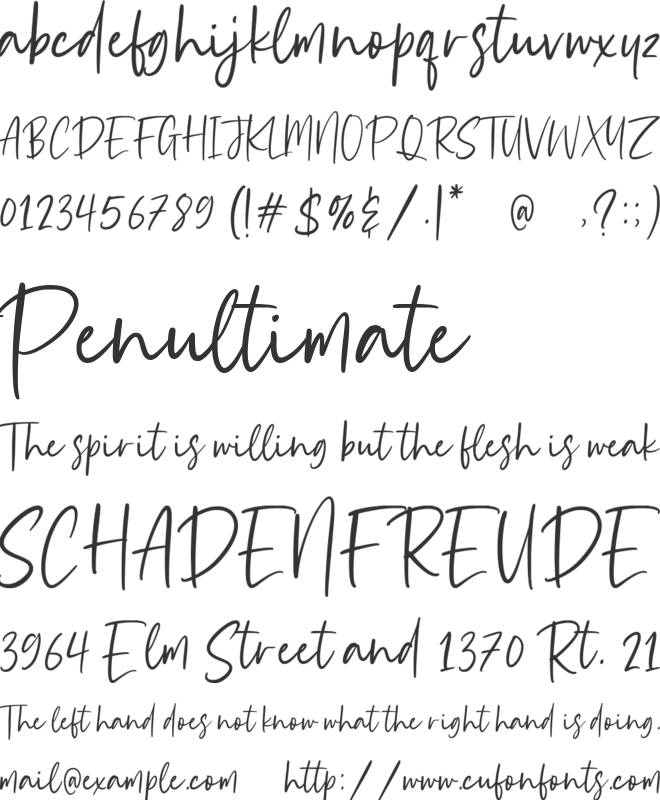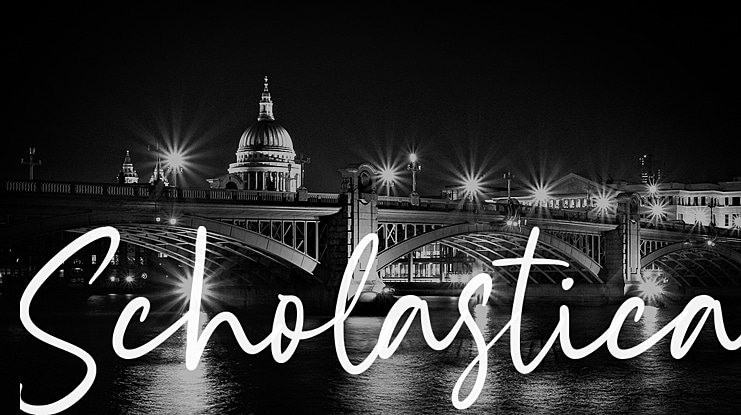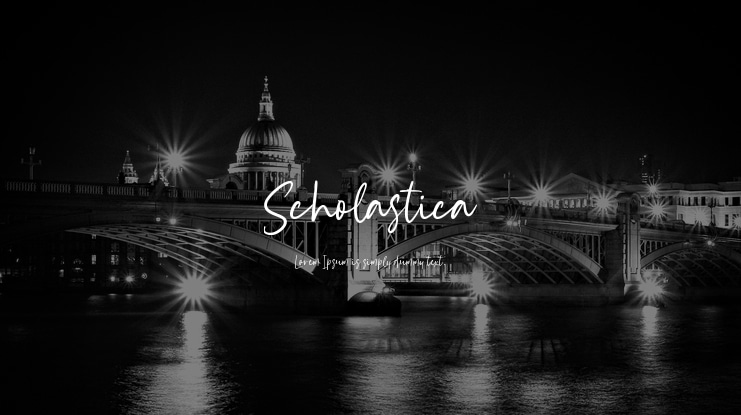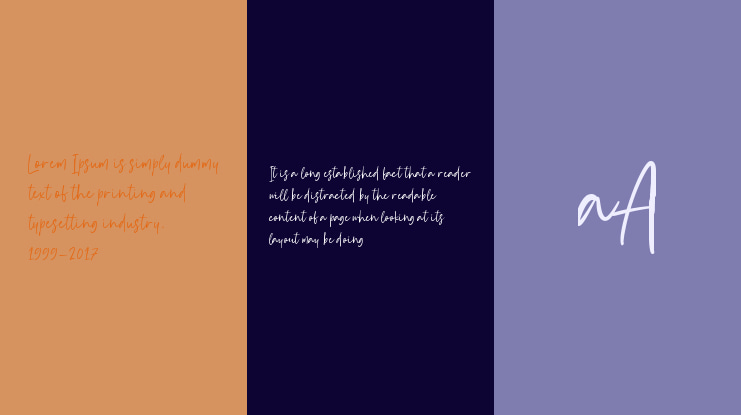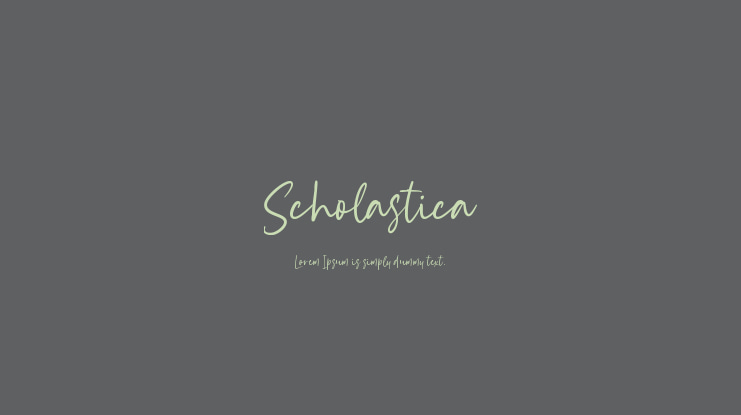
Scholastica Font
Proudly Present, Scholastica Font.
Scholastica is a Modern Handwritten Font.
Scholastica is perfect for product packaging, branding project, magazine, social media, weddings, or just used to express words above the background.